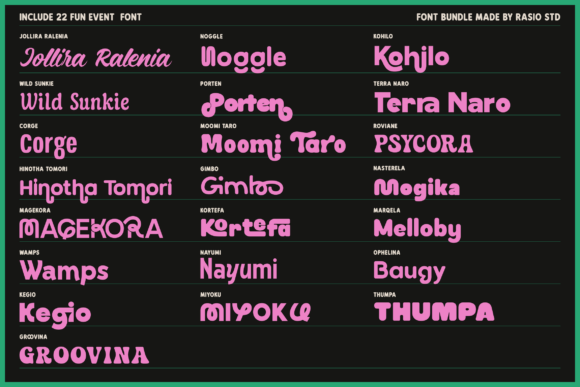
Introduction to Fun Event Font
Bring energy, excitement, and personality into your designs with the Fun Event Font Bundle.
This vibrant collection features 22 playful display fonts crafted to create cheerful, bold, and eye-catching visuals for all kinds of fun creative projects Each typeface is designed with expressive shapes, dynamic styles, and unique character details that instantly make your designs feel more lively and engaging.
Key Features of Fun Event Font